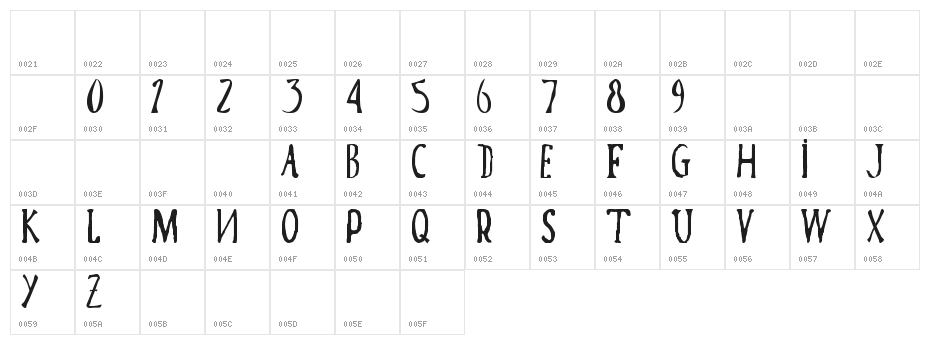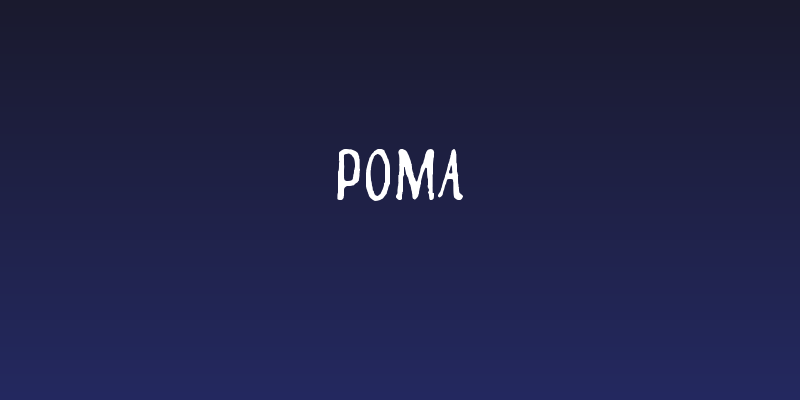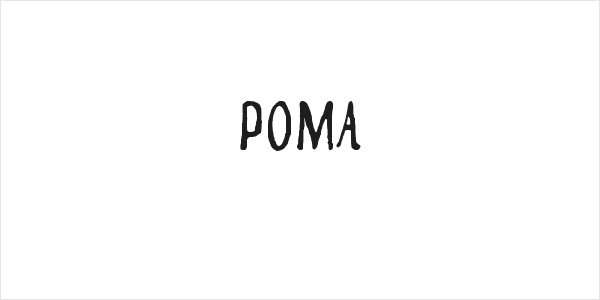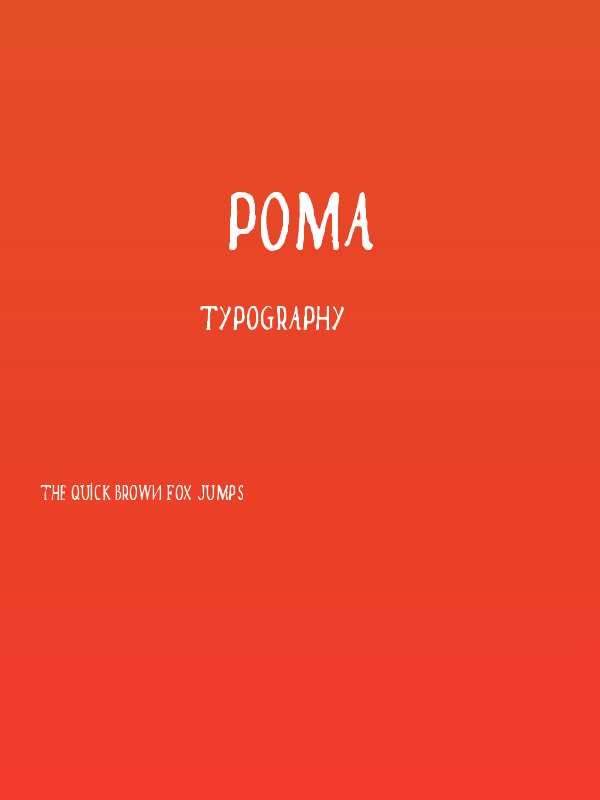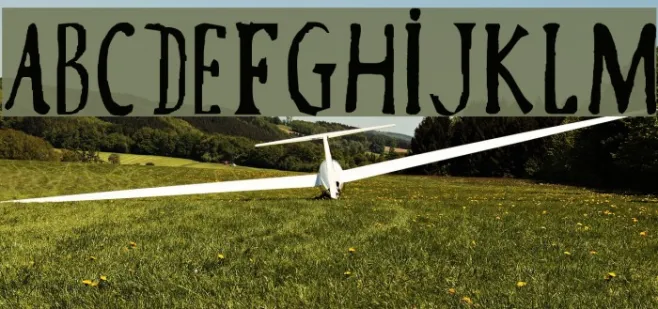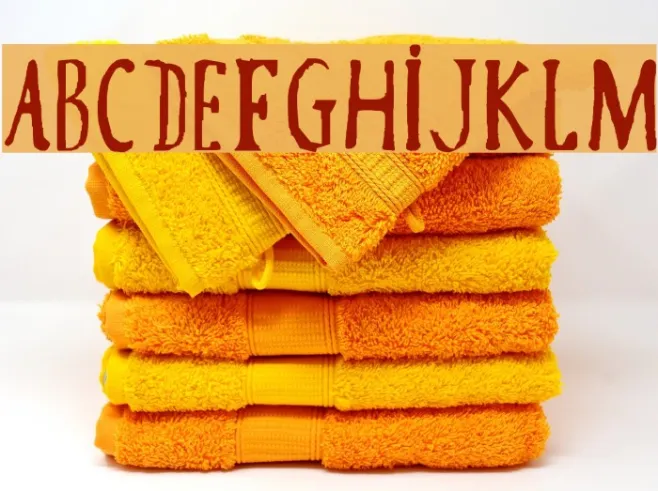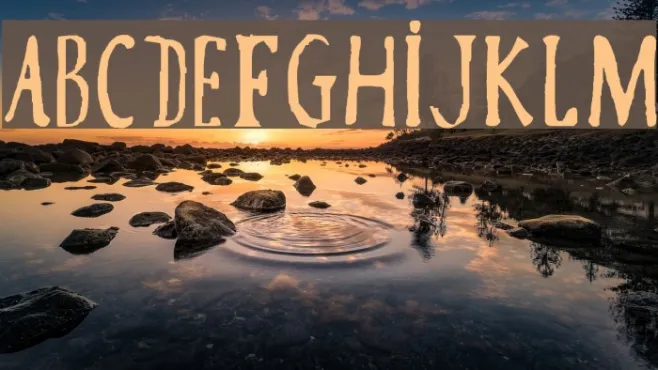
Poma Font
Poma Description
This font features a distinctive, hand-drawn style with uneven strokes and a slightly whimsical appearance. The uppercase letters are bold and dynamic, with varying stroke widths that add character and a touch of playfulness. The lowercase letters maintain this playful aesthetic, with some characters exhibiting unique flourishes and curves. The numerals are similarly styled, with a bold presence and artistic flair. Overall, the font conveys a sense of creativity and individuality, making it suitable for projects that require a personal touch or an artistic vibe.
POMA UPPERCASE
POMA LOWERCASE
POMA OTHER CHARS